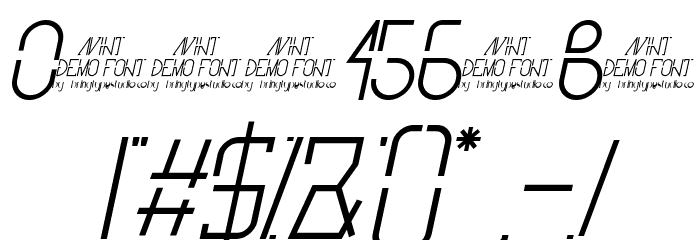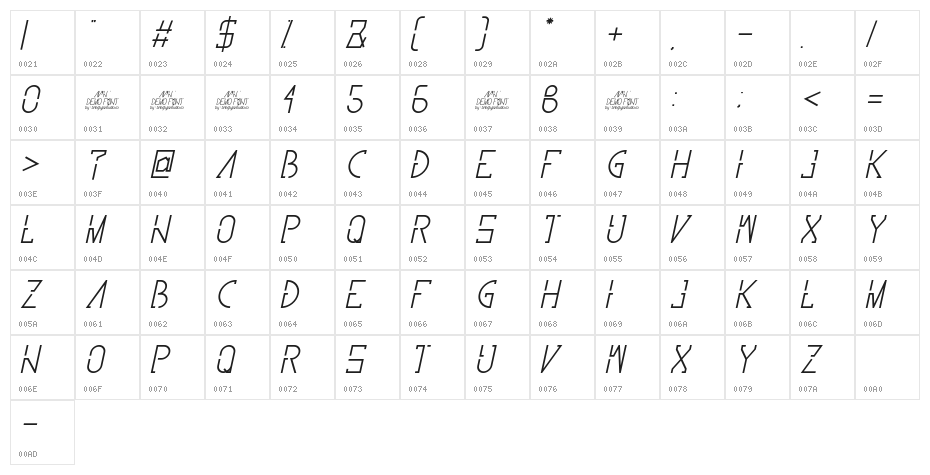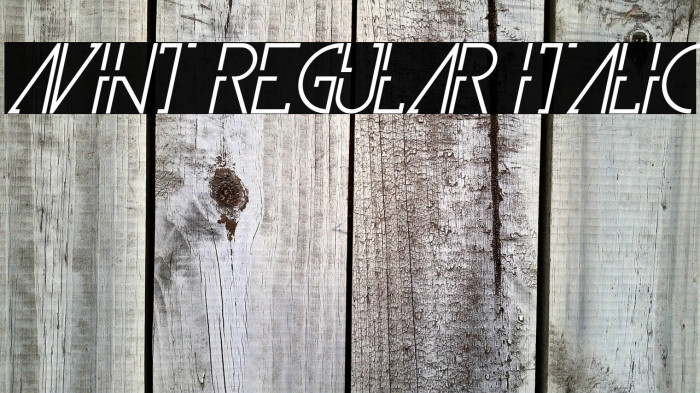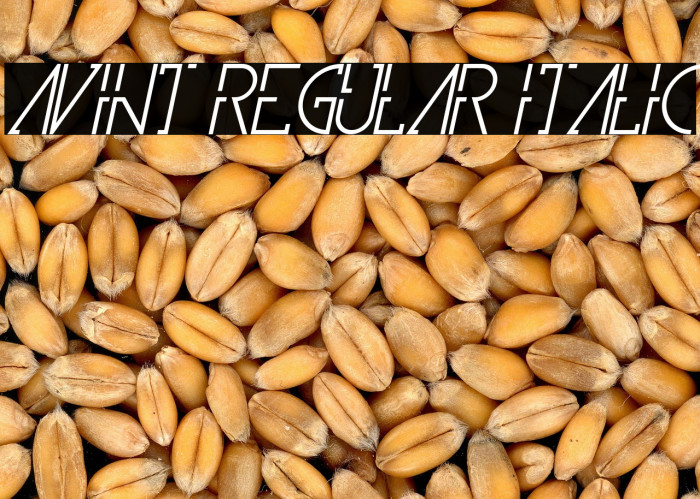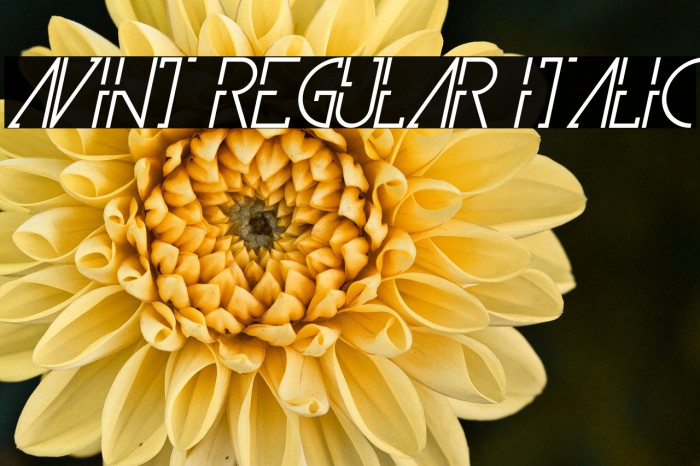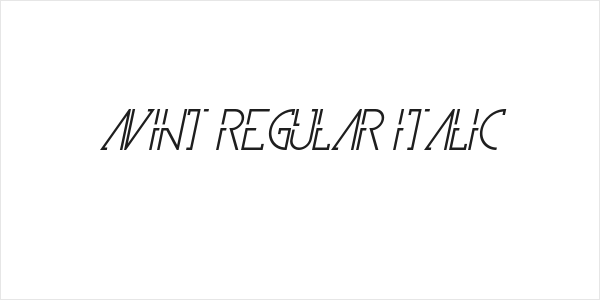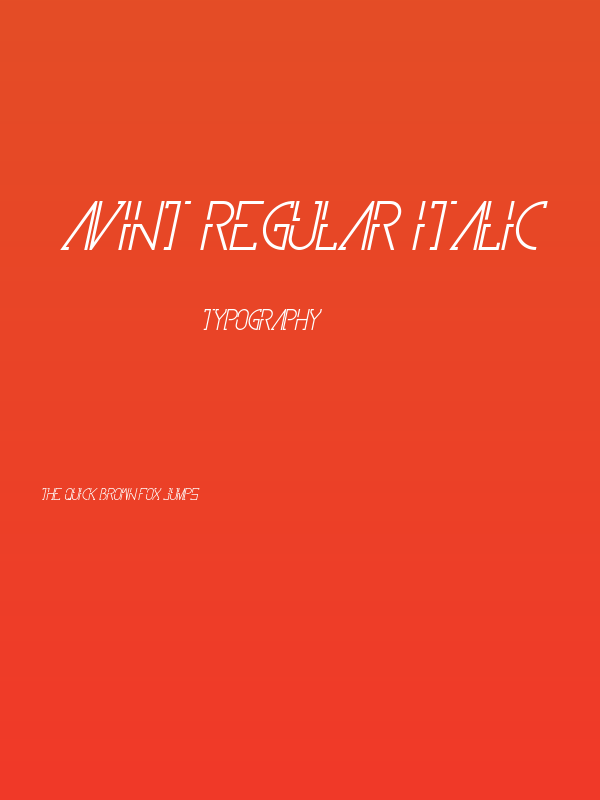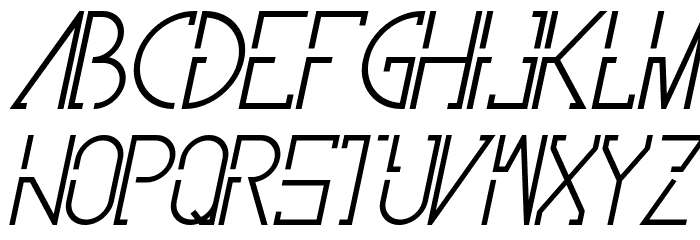
Avint Regular Italic Font
Avint Regular Italic Description
This font features a unique and modern design with a geometric and angular style. The characters are constructed with sharp, clean lines and a distinct slant, giving it an italicized appearance. The uppercase letters are bold and striking, while the lowercase letters maintain the same angular aesthetic. The numerals and special characters follow the same design principles, ensuring consistency throughout. This font's distinctive style makes it suitable for creative and contemporary projects, where a bold statement is desired.
| Proposed Projects | Ideal for branding, advertising, posters, and modern web design. |